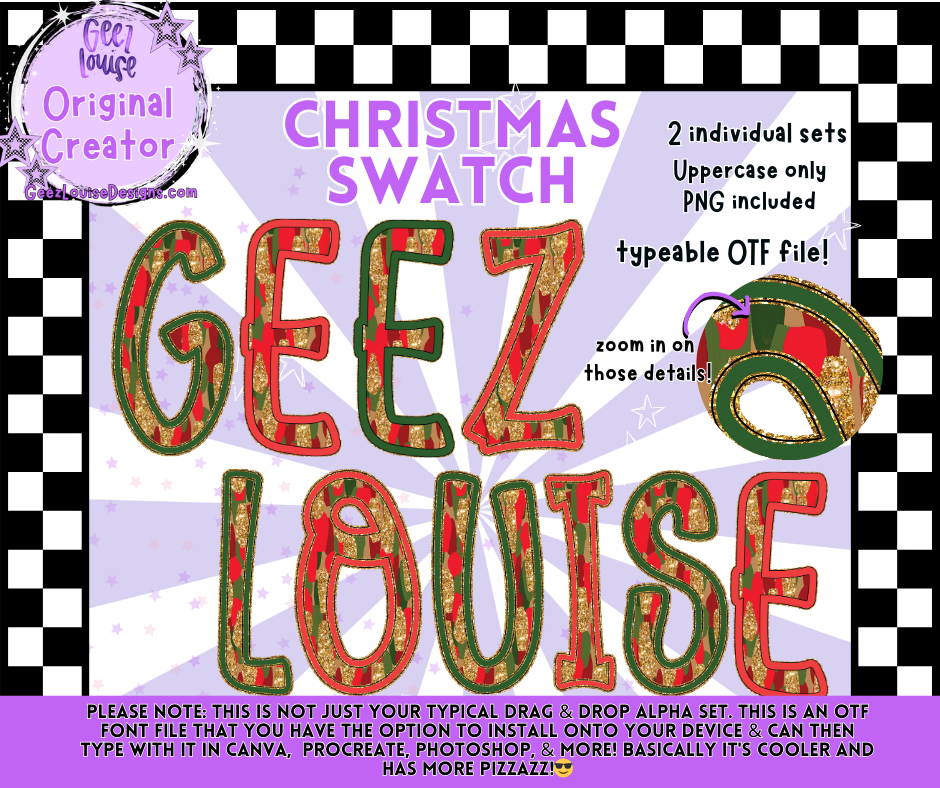
Christmas Swatch Alpha Font | Festive OTF & PNG Letters
🎁 Give your holiday projects a patchwork of festive cheer with the Christmas Swatch Alpha Font! 🎁
This set features bold red, green, and gold swatches with stitched details that create a fun and festive patchwork look. Perfect for Christmas designs that need that extra touch of handmade holiday charm.
Rich Christmas colors with stitched textures for cozy detail.